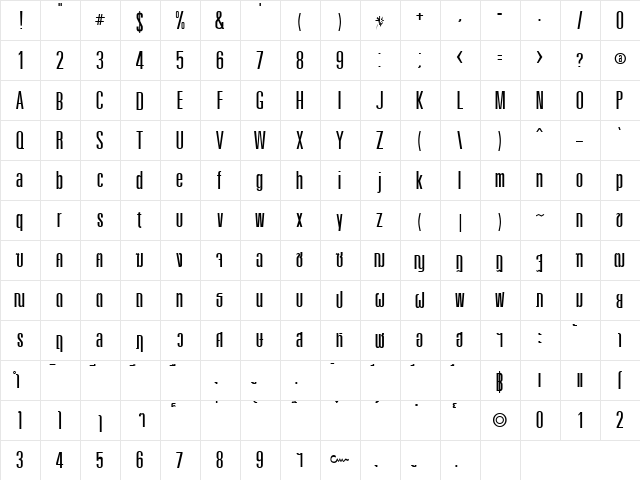
DSN PatPong Regular
Design Context for DSN PatPong Typeface
DSN PatPong is a composed and adaptable typeface that performs quietly and consistently across a wide range of design contexts.